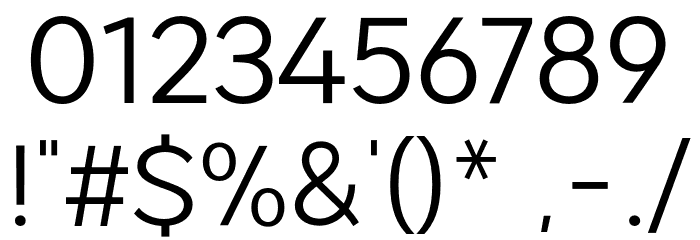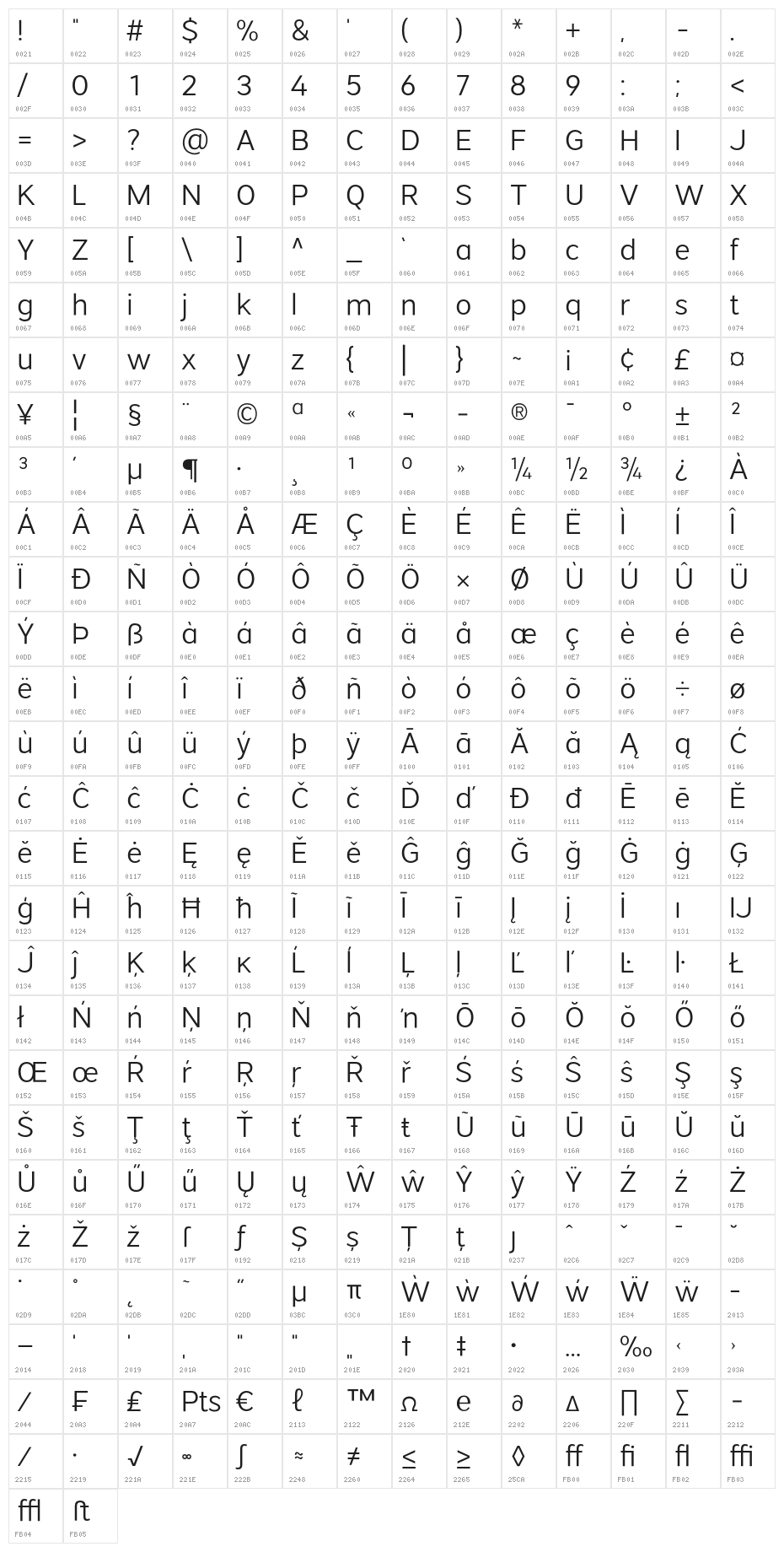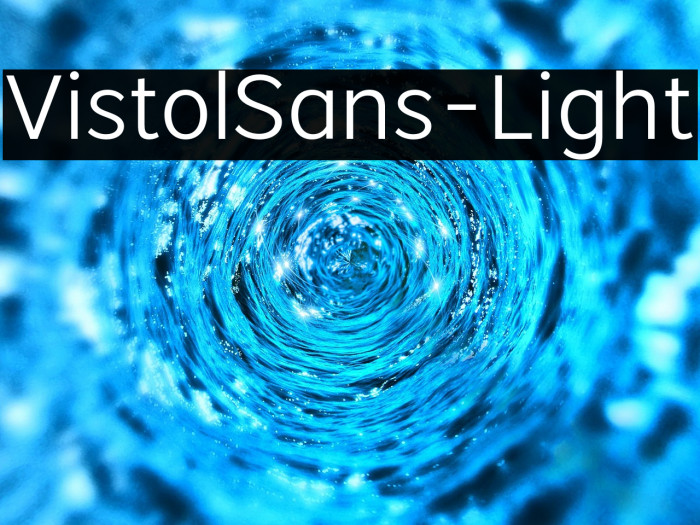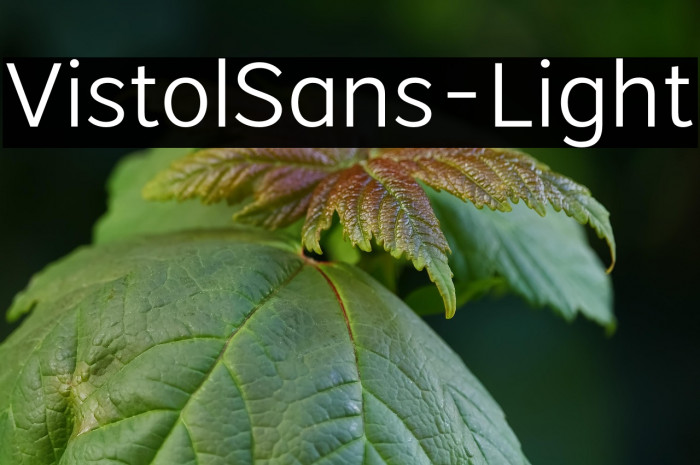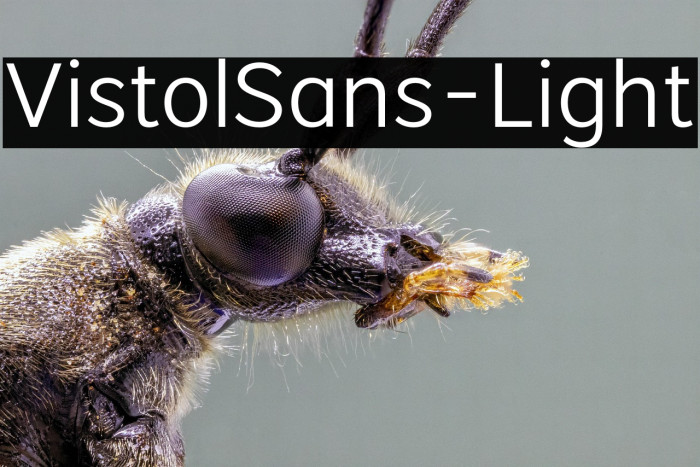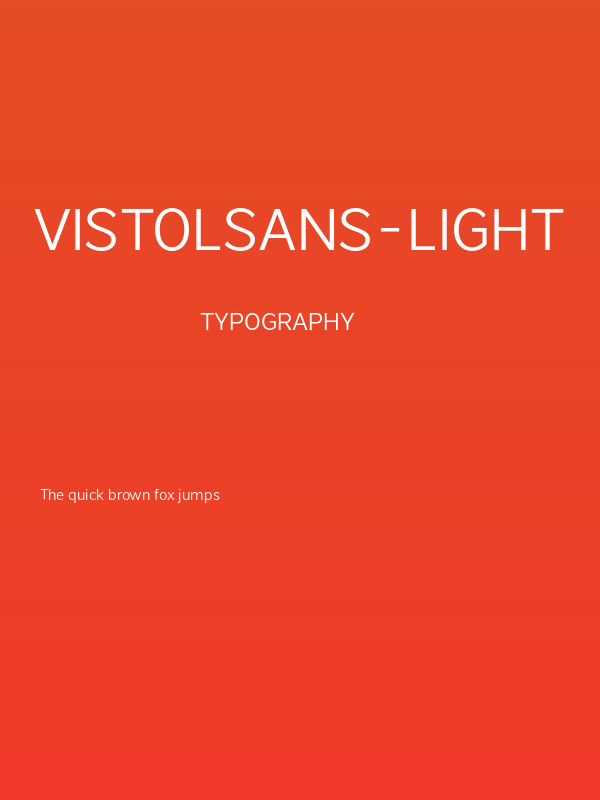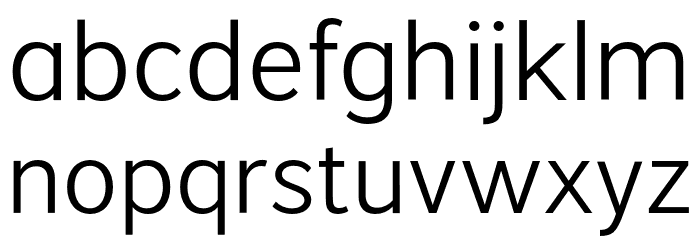
VistolSans-Light Font
VistolSans-Light Description
This font features a clean and modern sans-serif design with a light weight, making it ideal for a wide range of applications. The characters are evenly spaced with a normal width, providing excellent readability. The font exhibits low contrast in stroke thickness, contributing to its sleek and minimalist appearance. Its geometric shapes and uniform line widths give it a contemporary and professional look, suitable for digital and print media.
Use CaseHeadlines, Body text, Logos
Proposed ProjectsIdeal for web design, corporate branding, user interfaces, and editorial layouts.